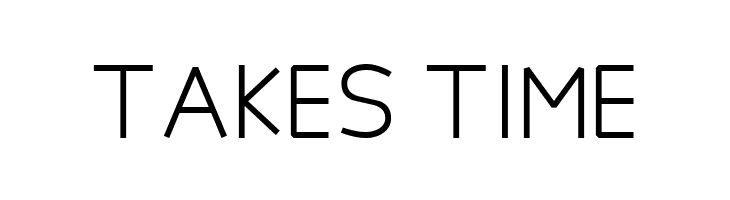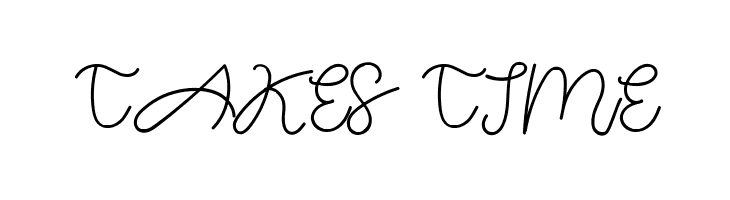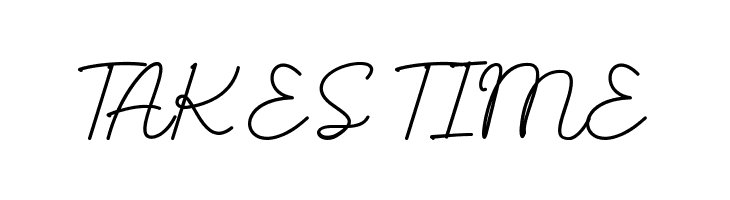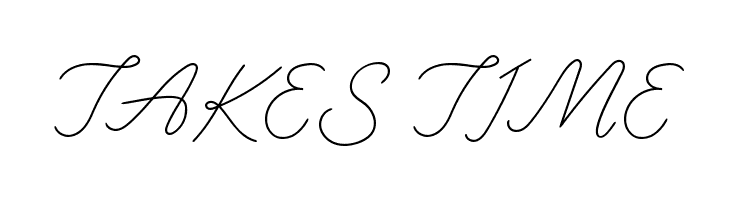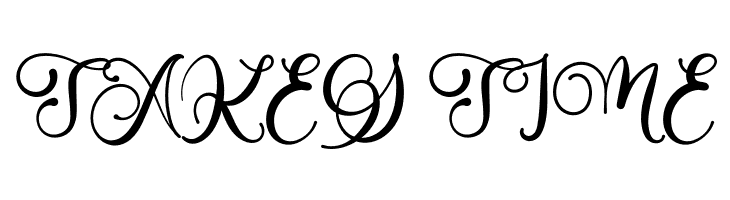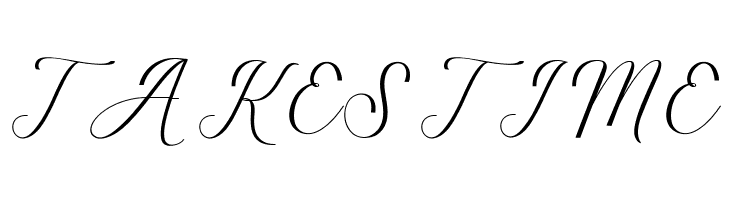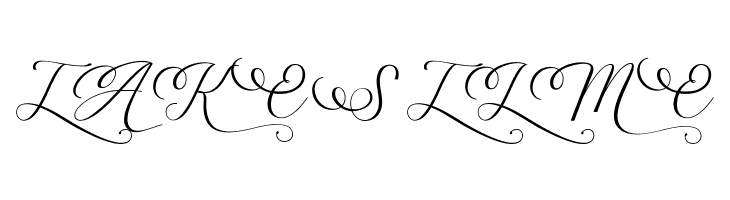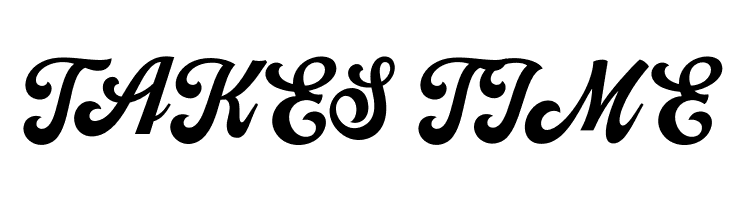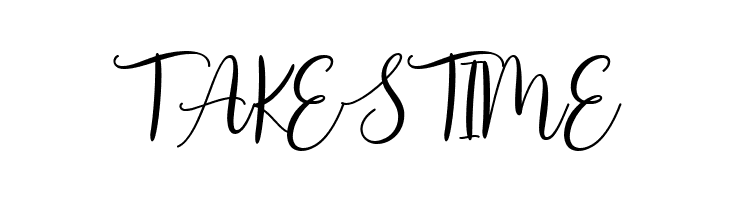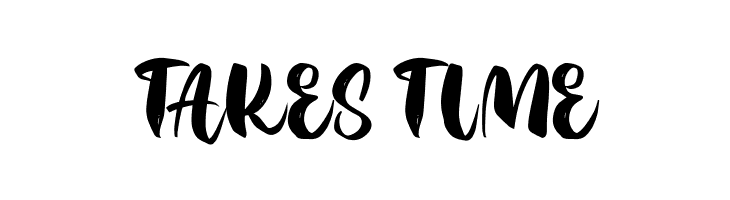
A bold, modern sans-serif font with clean lines and balanced spacing.
A bold, flowing script font with elegant curves and dramatic swashes.
A bold, expressive handwritten font with a playful and artistic style.
A graceful and flowing script font with elegant curves.
A casual, handwritten script font with fluid strokes and medium contrast.
A sophisticated and elegant script font with flowing, cursive letters.
An expressive, script-like font with a dynamic, hand-drawn appearance.
An elegant and artistic script font with flowing, intricate letterforms and decorative flourishes.
A graceful script font with flowing, cursive letters and elegant swirls.
Casual, artistic handwritten script font.
A bold, brush-style font with dynamic, hand-painted strokes.
A flowing, cursive script font with elegant loops and swirls.
A bold, expressive script font with a hand-drawn, dynamic style.
A flowing, elegant script font with ornate uppercase and harmonious lowercase letters.
An elegant and flowing script font with bold, cursive letterforms.
An elegant script font with fluid, cursive strokes and a sophisticated appearance.
An ornate and decorative blackletter-style font with intricate flourishes.
A bold, cursive script font with elegant loops and a natural flow.
A fluid and elegant script font with dynamic cursive letterforms.
A bold, cursive font with decorative swirls and high contrast.
A playful, hand-drawn script font with a condensed and bold style.
A modern-vintage font with unique curves and angular details.
An elegant, decorative script font with intricate swashes and flowing letterforms.
An elegant script font with flowing cursive letters and high contrast strokes.
A graceful and fluid script font with interconnected letters and elegant curves.
A bold, flowing script font with elegant curves and high contrast.
An elegant script font with flowing, intricate loops and artistic flair.
A graceful script font with flowing, connected strokes and a handwritten style.
A flowing, cursive script font with elegant, interconnected characters.